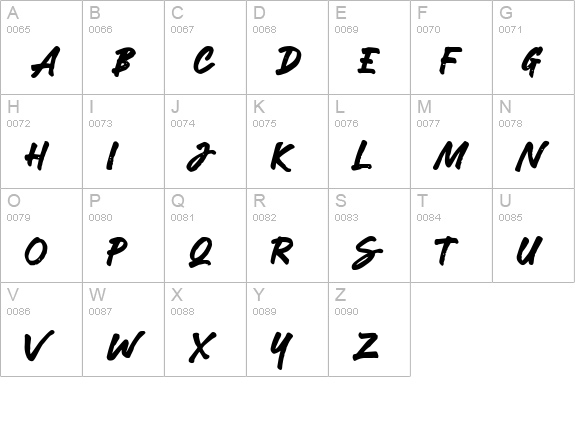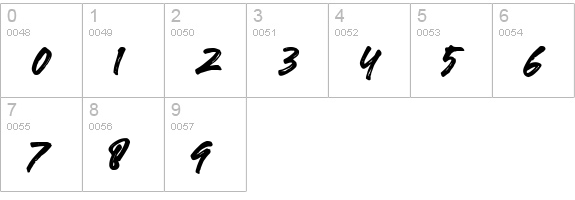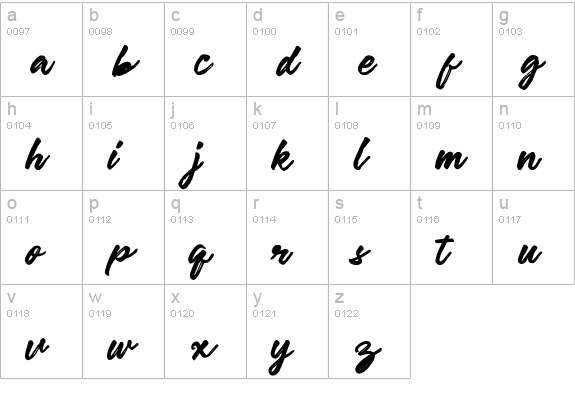
Daisy Mettur Font Details
Daisy Mettur is a free for personal use font in the Script > Handwritten category, designed by Serin Studio. It has been downloaded 884 times and is available for Windows, Mac and Linux.
Daisy Mettur font is a charming and playful typeface that exudes a sense of elegance and whimsy. With its delicate curves and flowing lines, this font is perfect for adding a touch of sophistication to any design project. Whether you're creating invitations, branding materials, or social media graphics, Daisy Mettur font will make your text stand out in a beautiful and eye-catching way.